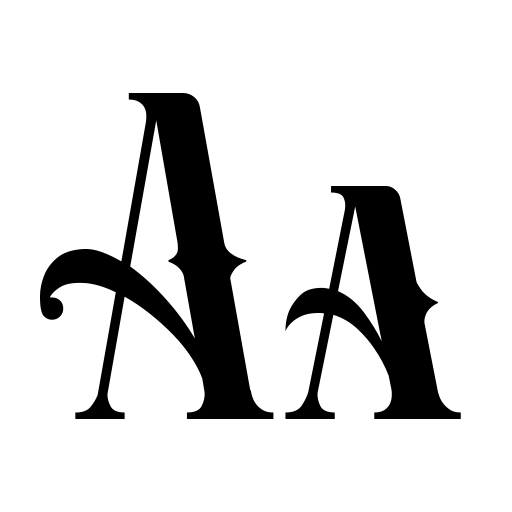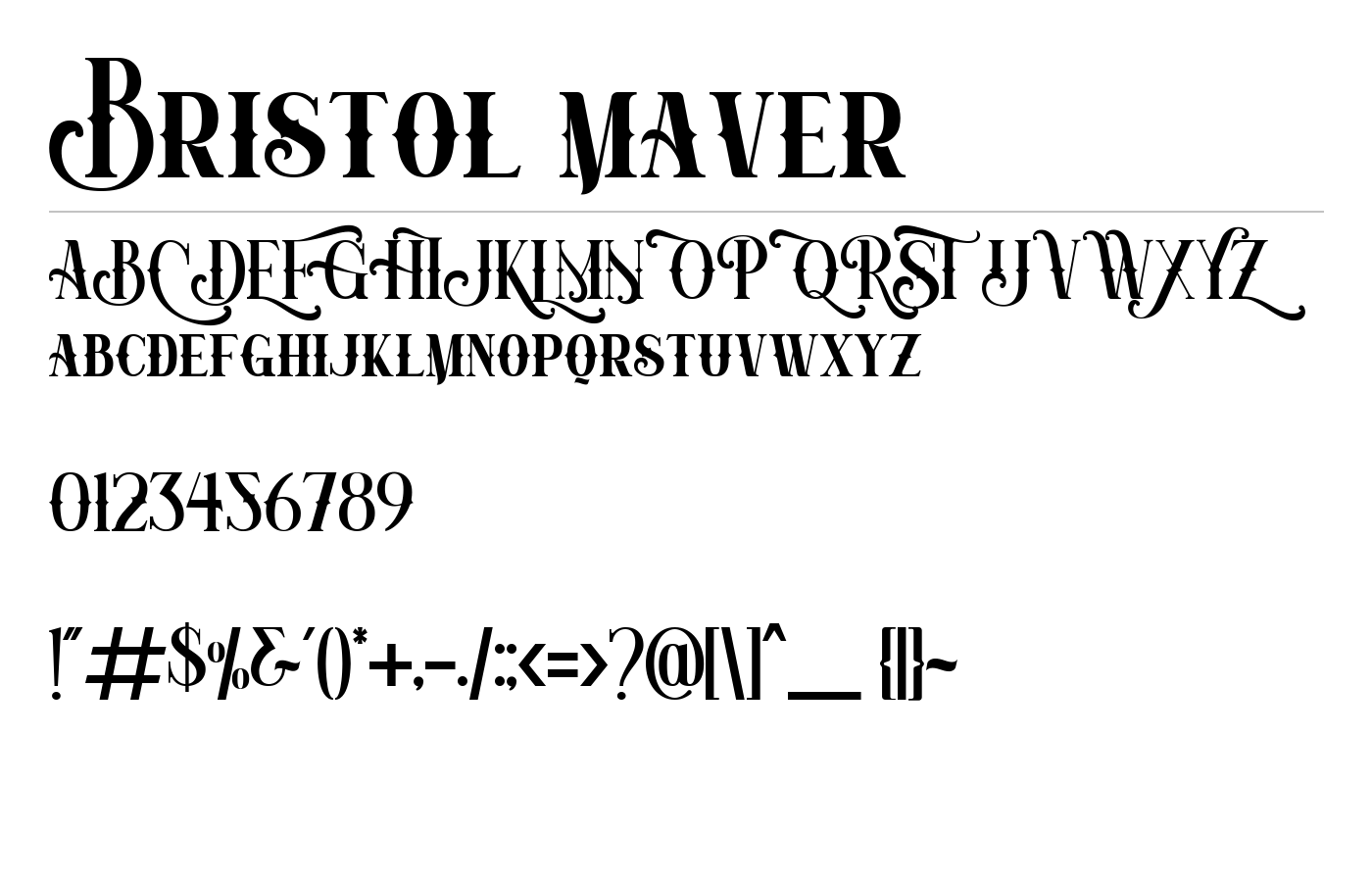
Bristol Maver is an ornamental serif font with a strong vintage flair, featuring dramatic high contrast strokes and elaborate swashes that give it a bold, decorative personality. Its tall, condensed letterforms with intricate details make it ideal for eye-catching headlines, logos, and branding that seek a classic yet artistic look. This font works best in designs aiming for a luxurious, theatrical, or historical feel, adding sophistication and flair to packaging, posters, and editorial titles.